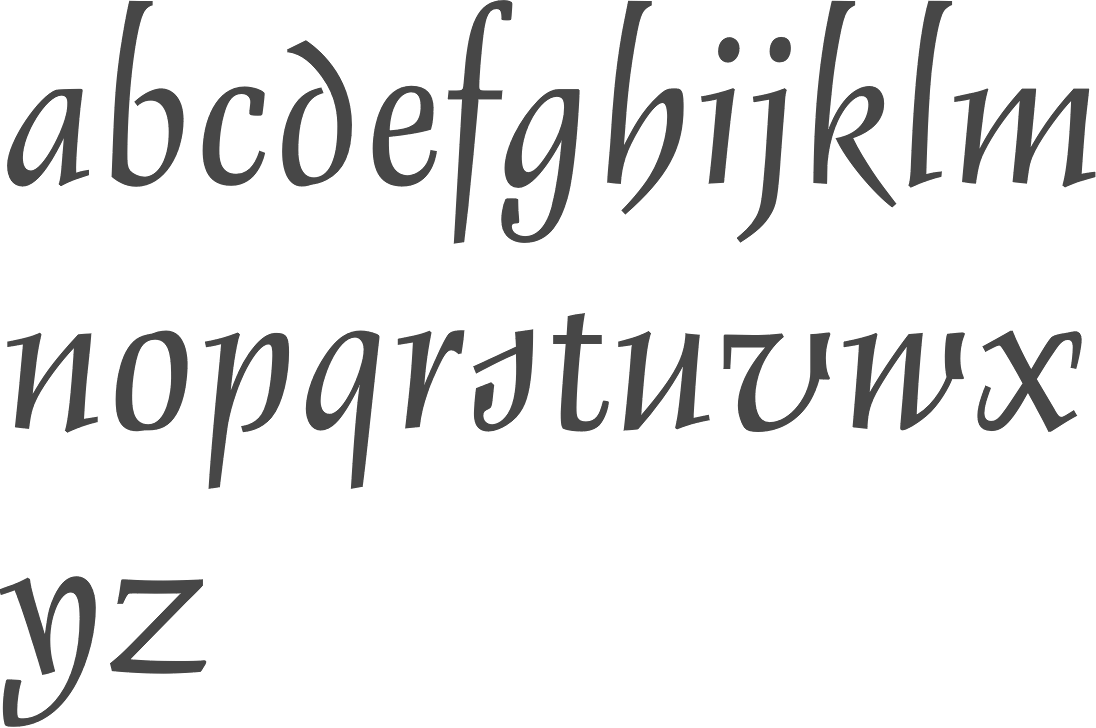
Famous Adobe Script Fonts Ideas
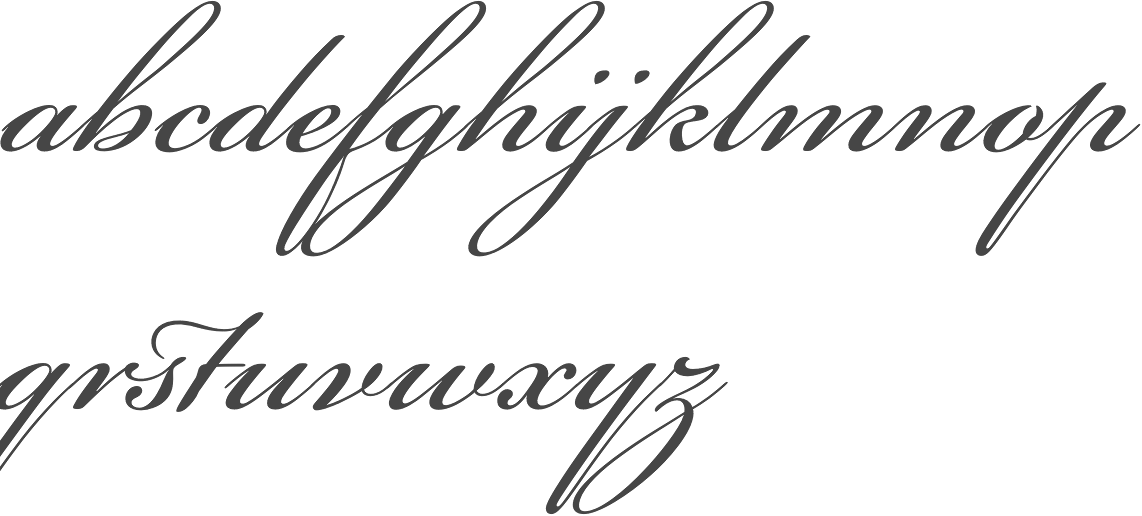
Check out this awesome collection of popular script fonts from envato elements. It’s a calligraphy font that works great when used for formal. Design projects create images or vector.
Viktor Script By Oh No Type Company Oh No Type Co’s Viktor Script Brings Brush Painted Type To Your Font Book (Image Credit:
A script typeface with 2 styles, available from adobe fonts for sync and web use. Caflisch script font family was designed by robert slimbach and published by adobe. The full adobe fonts library can be used for both personal and commercial projects design projects create images or vector artwork, including logos website publishing create a web.
It Imparts A Human Touch To The Writing, All The While Keeping It Neat And Aligned.